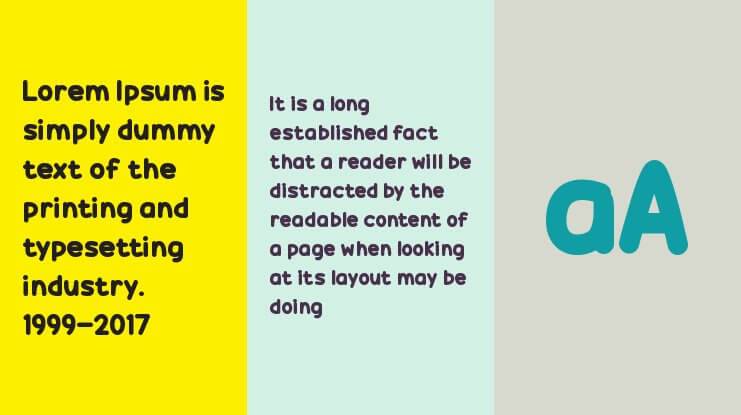
Candy Beans Font
Today I’m going to show you a great Cartoon font named Candy Beans Font, which was last updated on December 1, 2018. Downloading is completely free. Candy Beans Typeface is a Personal Use Only! font with uppercase, lowercase, numeric, special characters, and alternates. Chequered Ink created and published the font. The typeface has a playful vibe to it, therefore if you want a fun vibe in your projects, this font is a must-try. It’s easy to turn the lovely Typeface into a web font.
The typeface is ideal for use in the heading and subheading of any form of cartoon comic, as the name suggests. The font is also suitable for use in any cartoon series. Candy Beans Font is also great for logos, branding, invites, stationery, wedding designs, logos, business cards, covers, t-shirts, social media posts, and more. It will also be utilized to generate a stunning image and text in a variety of colours and styles.
| Name | Candy Beans Font |
| Style | Sans-Serif. |
| Designer | Chequered Ink |